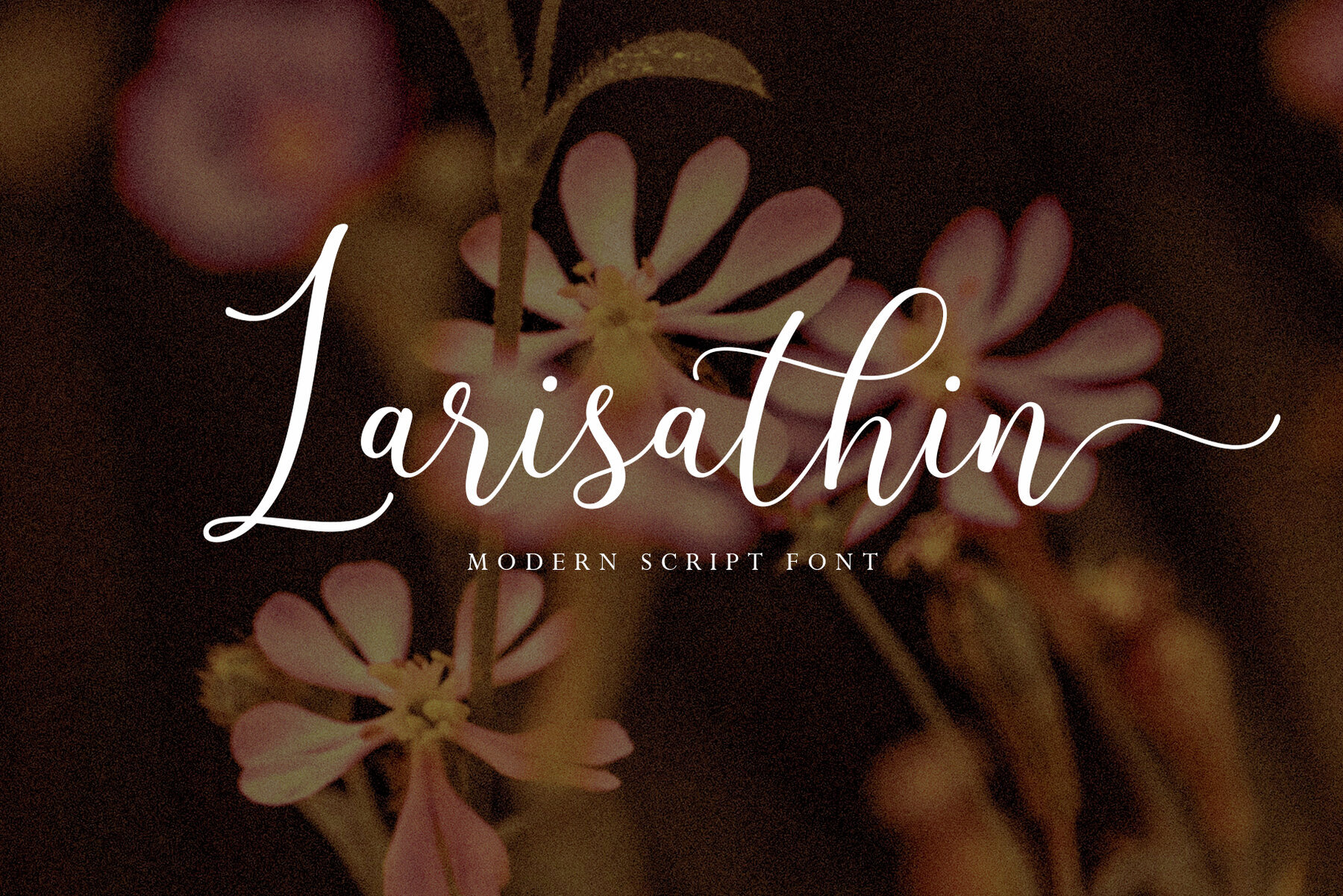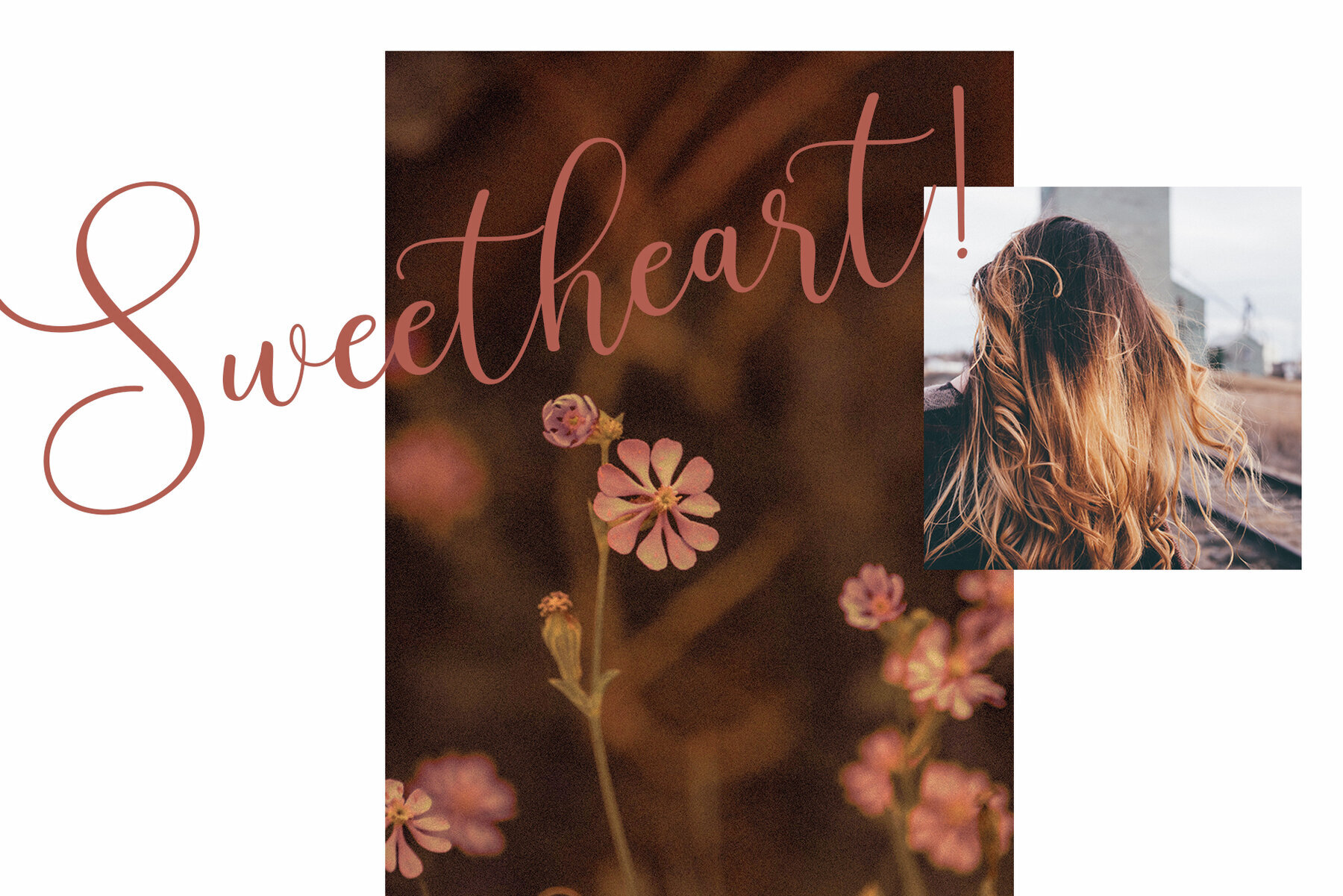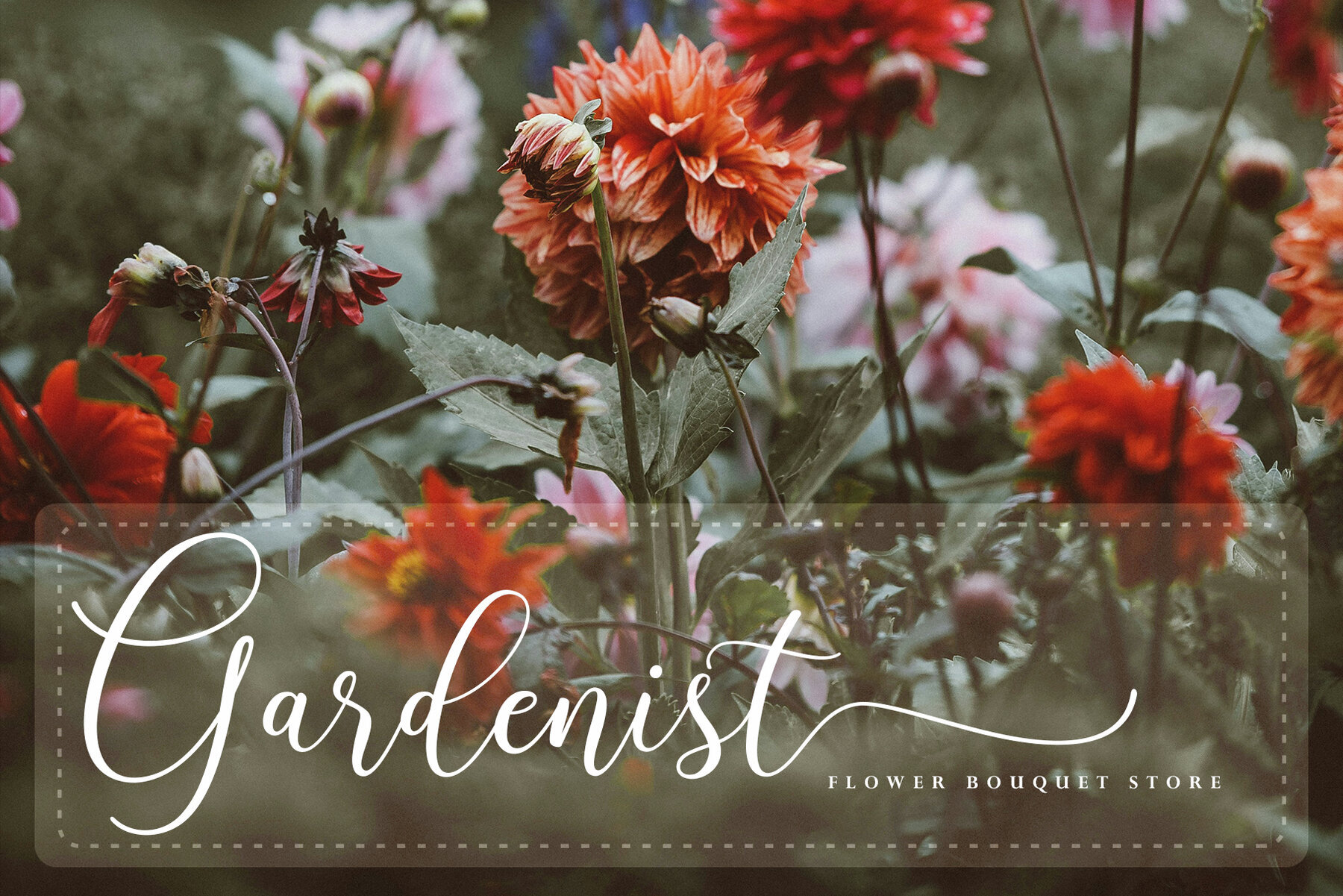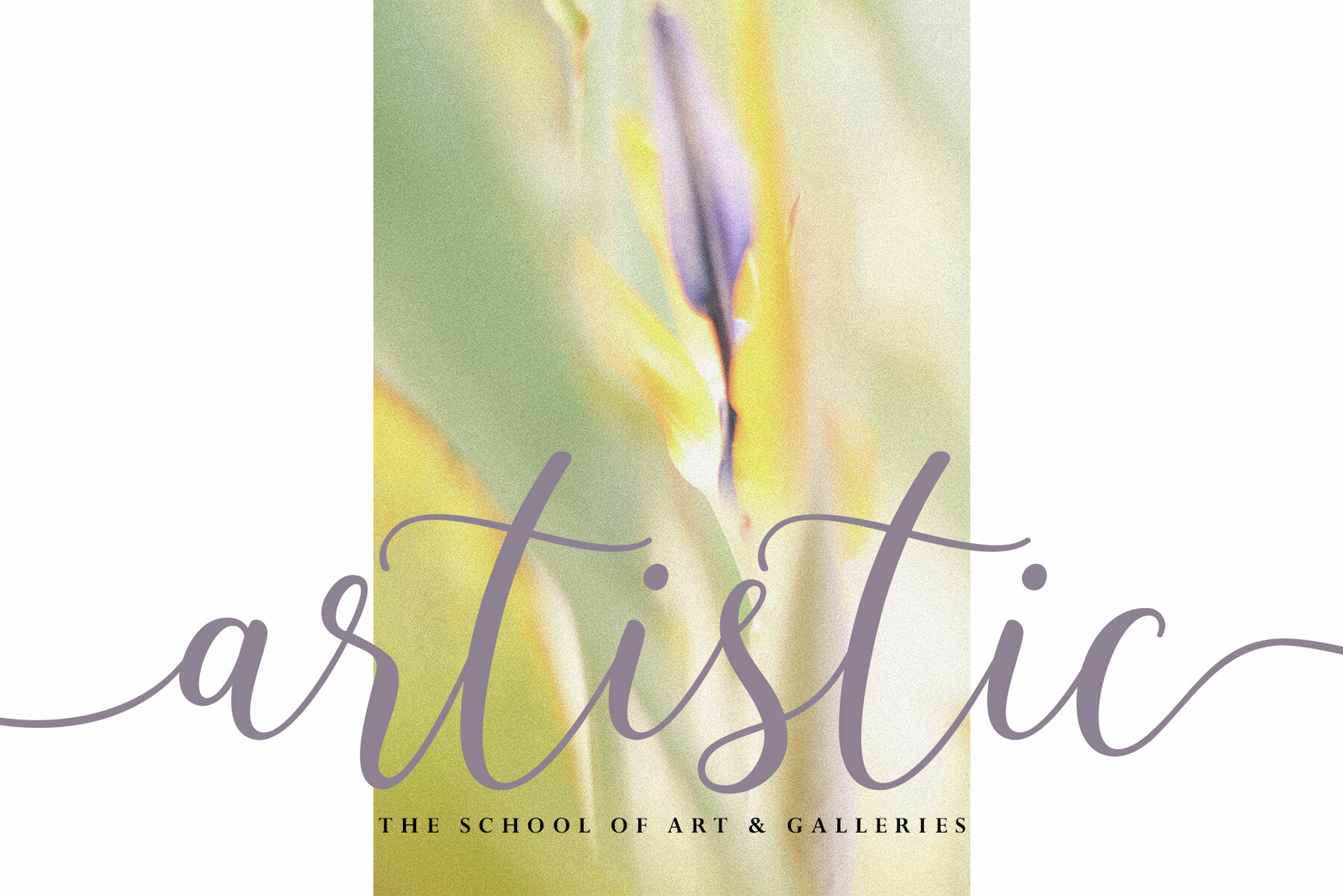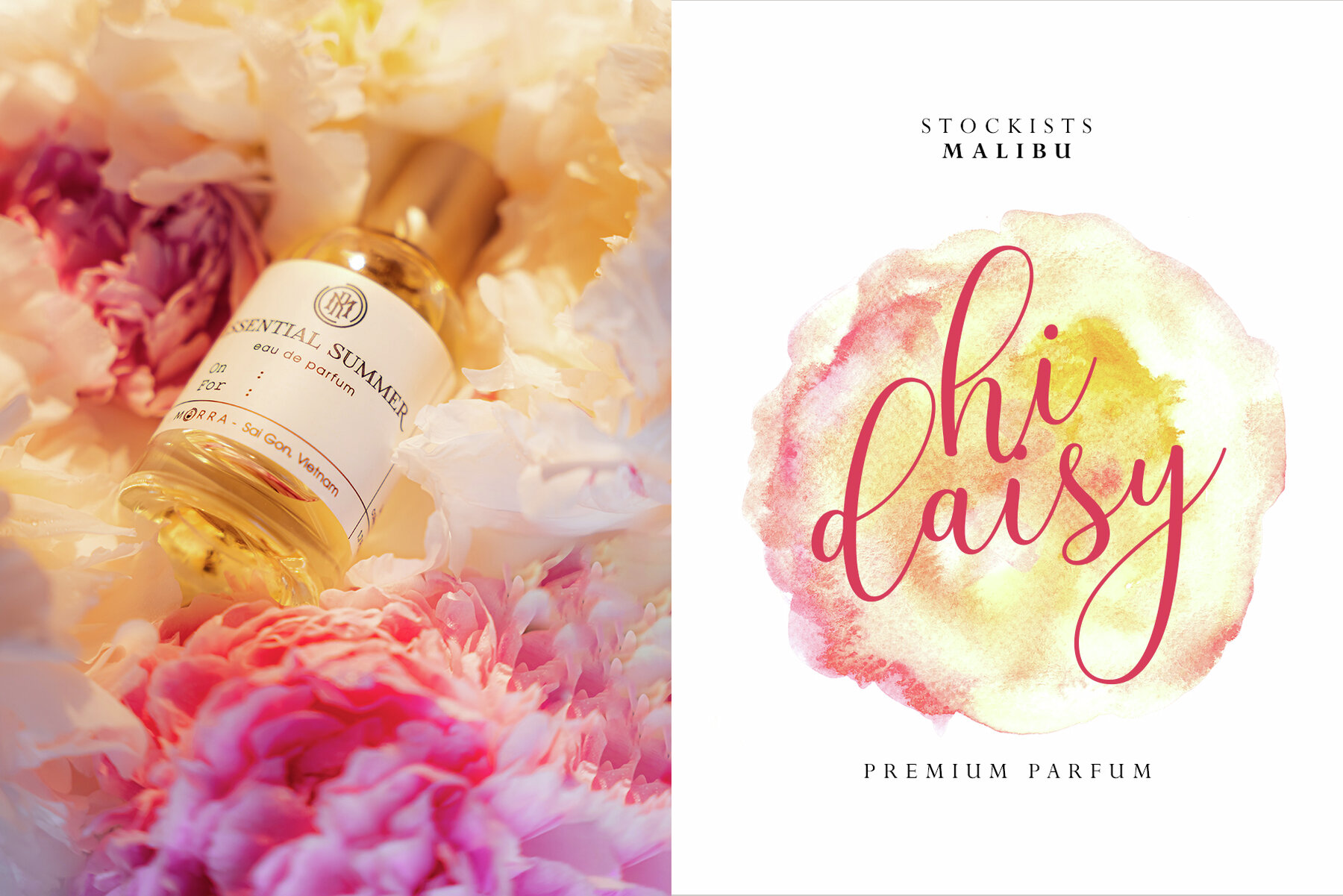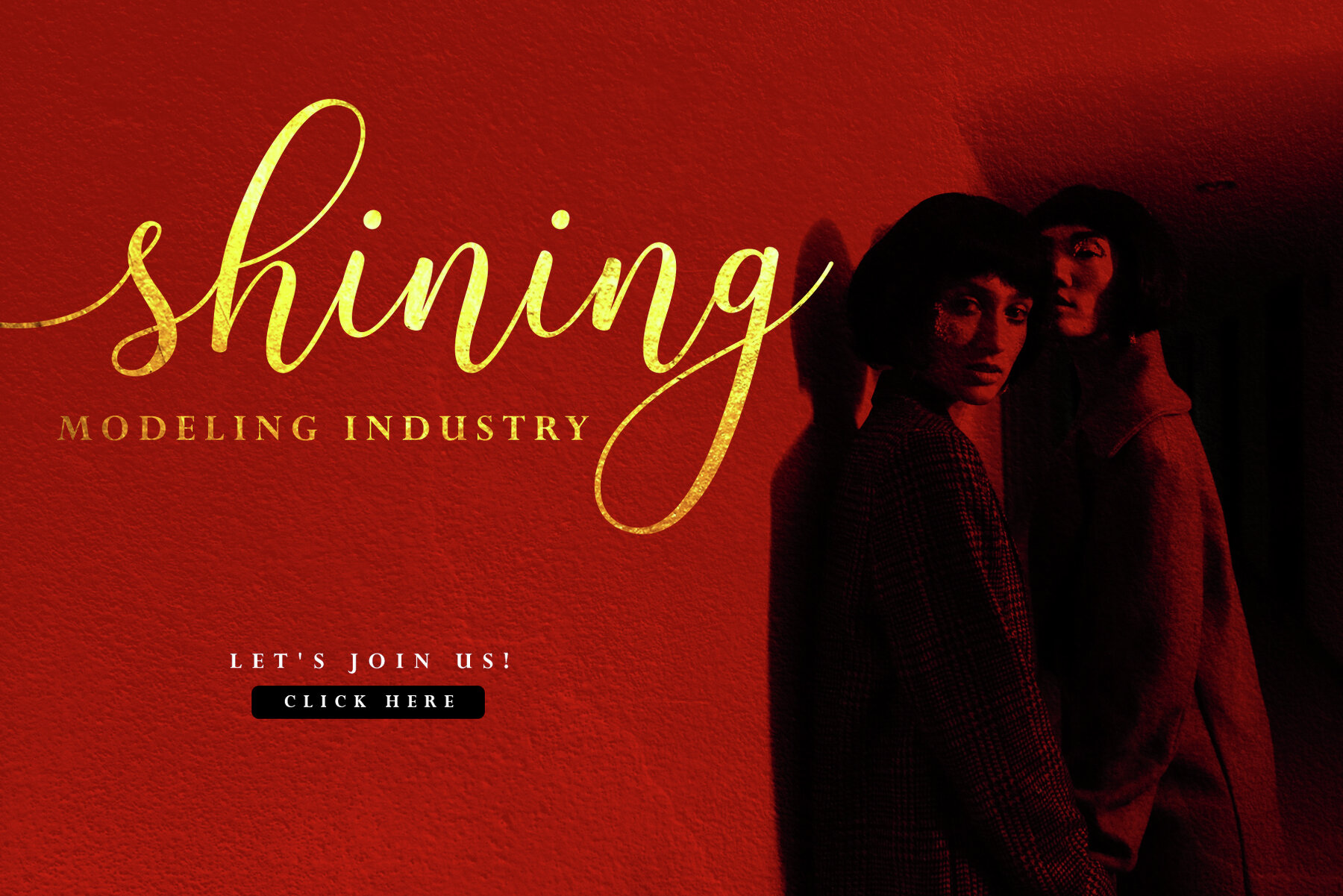
Larisathin Font
Larisathin Script
Discover the refined charm of Larisathin, a modern calligraphy font by FadeLine Studio. Its elegant, stylish, and neatly italicized design makes it the perfect choice for adding a touch of sophistication to any project. Whether you're working on logos, branding, or homeware design, Larisathin brings a graceful finish to your creative endeavors.Modern Elegance with Larisathin Font
Versatile Use for Your Creative Projects